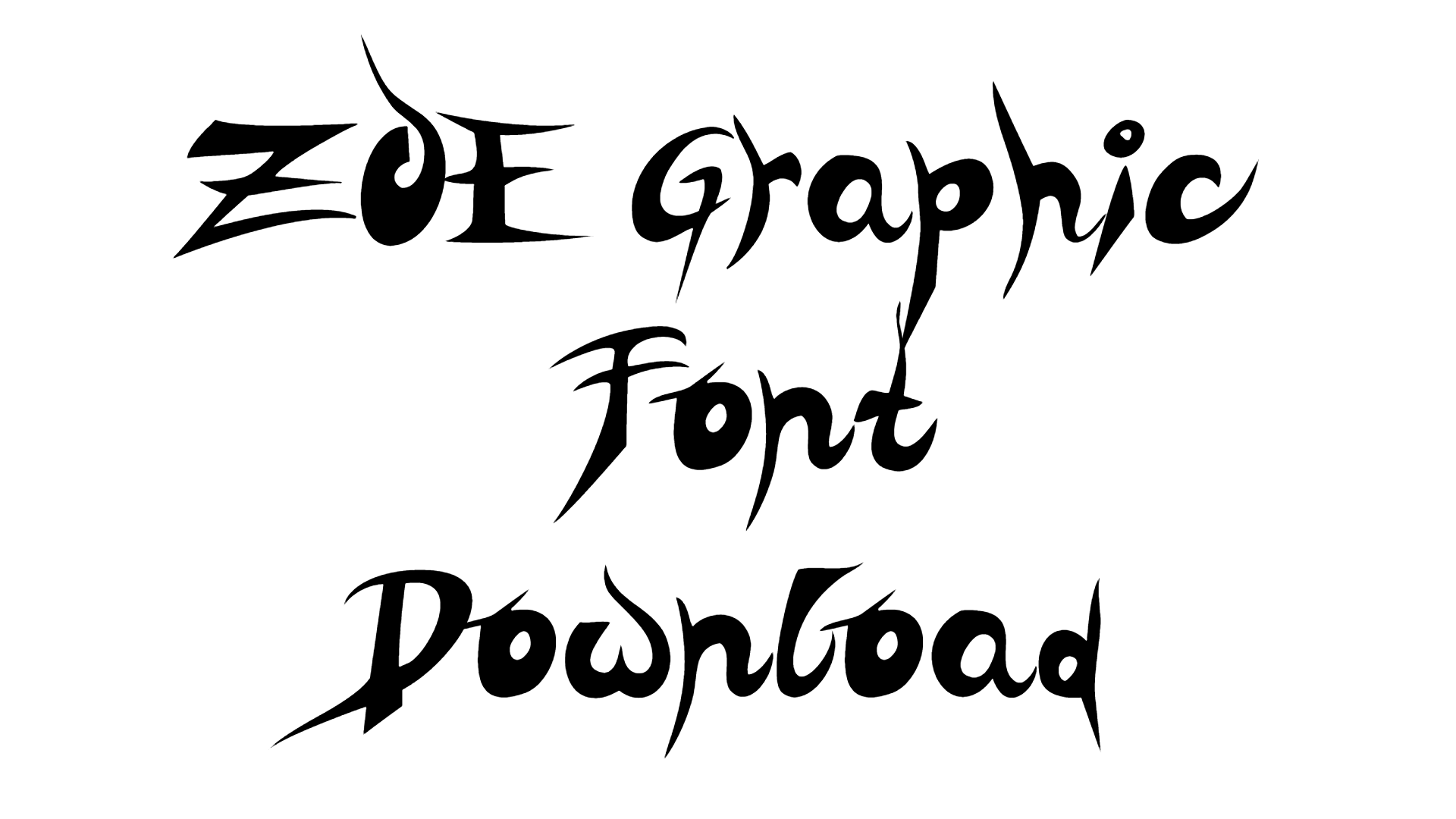
ZOE Graphic Font
ZOE Graphic
ZOE Graphic is a graffiti font created by Tanja Schulz – ZOE. It has the bold, energetic shapes of spray-painted street lettering. It's a free download, and you can try it with your own text in the preview above first.
What You Can Type With ZOE Graphic
With complete upper and lowercase letters and all ten digits, ZOE Graphic is ready for real wording, not just a single headline. Everyday marks like &, !, ? and @ are there too. It has 6 accented letters, but not the full set for Spanish or French, so test any non-English words first.
Where ZOE Graphic Works Best
ZOE Graphic is a natural fit for streetwear, album covers and urban posters. Use it big and give it room. Graffiti letters are packed with detail, so they look best as one or two words, not full sentences.
Does ZOE Graphic support accented letters?
Partly. ZOE Graphic has 6 accented letters, but not the complete set for Spanish, French or German. Type your words in the preview above to check before you use it.
What fonts pair well with ZOE Graphic?
Balance it with a heavy, simple sans serif like Bebas Neue or Anton for the supporting text.